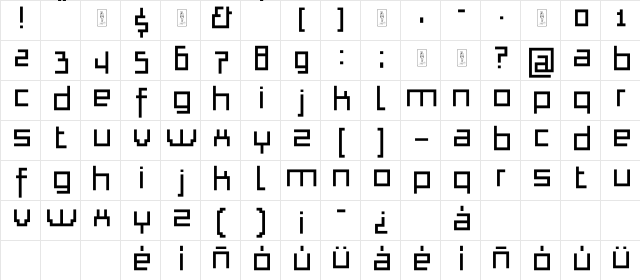
Thapkie MG Regular Font Preview
Thapkie MG Regular
Design Context for Thapkie MG Typeface
Thapkie MG is a composed and adaptable typeface that performs quietly and consistently across a wide range of design contexts.